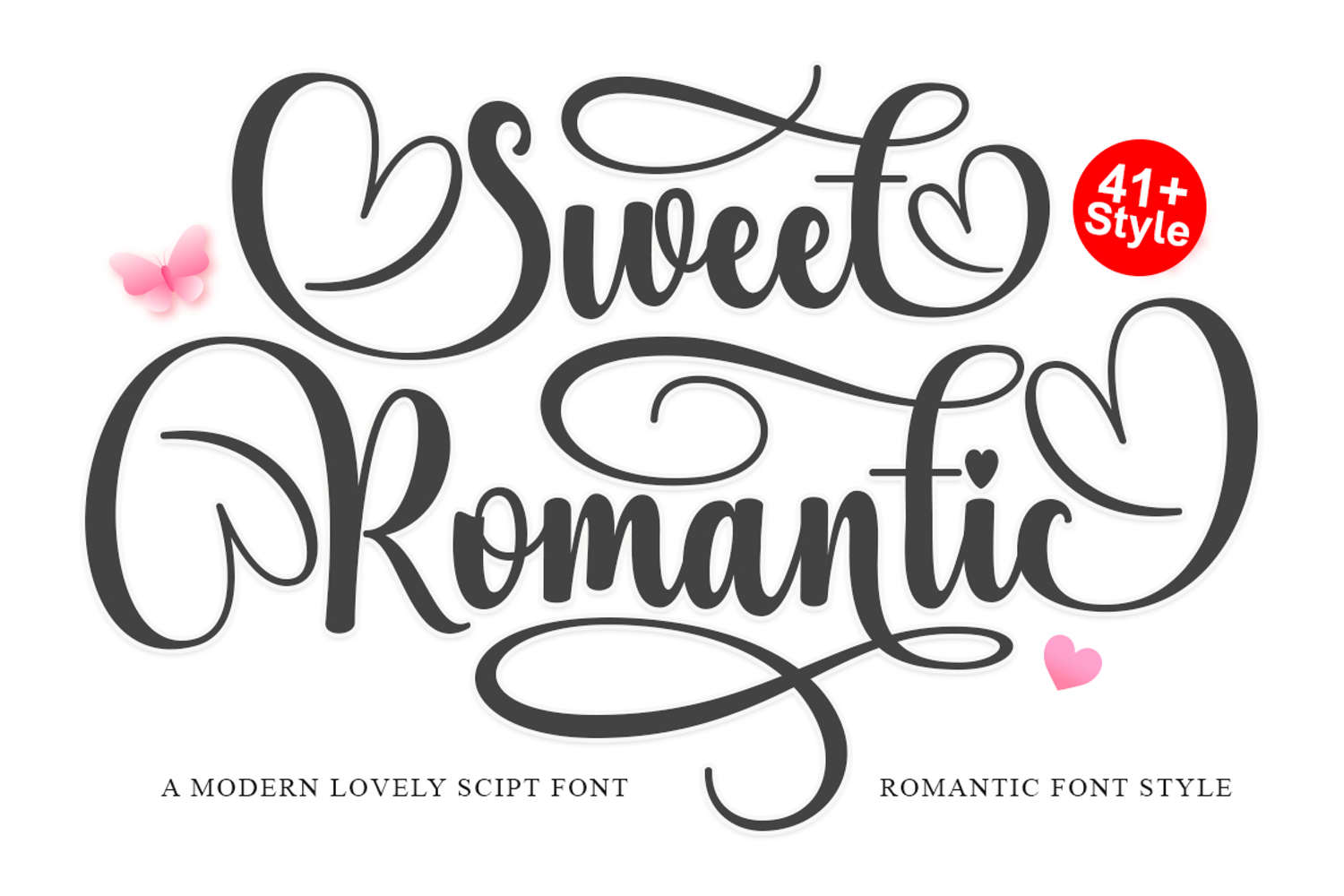
Sweet Romantic - Family Font In 42 Styles
Sweet Romantic makes a statement with its sleek, clean lines, feminine curves, and effortlessly glamorous vibe. Beautifully balanced between classic charm and contemporary flair, it features graceful letterforms, smooth ligatures, and stylish alternates for endless creative options.
Whether you’re designing for invitations, fashion labels, beauty brands, restaurant menus, logos, novels, packaging, or editorial layouts, Sweet Romantic adapts perfectly — adding a refined, upscale edge to any project.
42 Typeface Styles: from Regular, Italic, Bold, and Outline, Smooth, Smart Corner, and beyond.